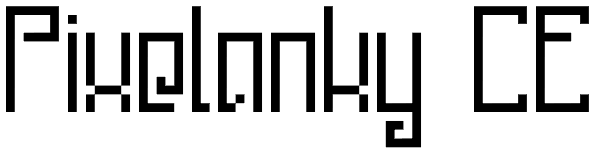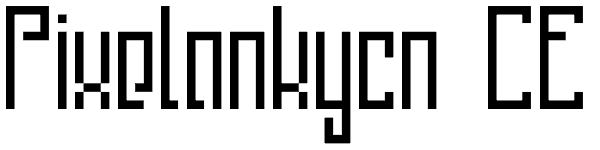
Pixelanky
Pixelanky CE is designed for use in Flash so it doesn´t blur or fill. This font also works well in dynamic and input text fields (Flash 5 and higher). Pixelanky CE includes full Central European character set, with Regular and Bold style...